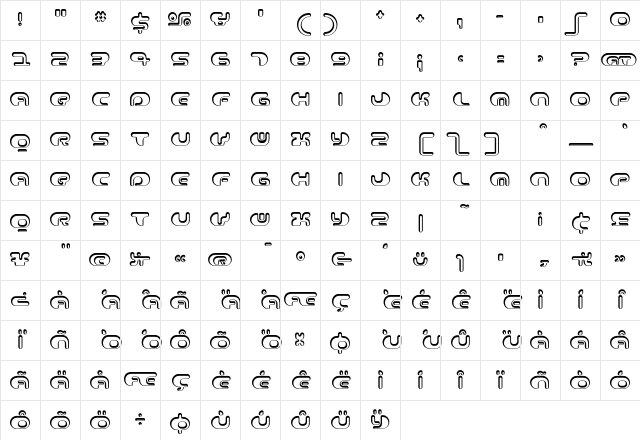
Complete Contour Shaded glyph index. Displaying only characters natively supported by Contour Shaded font.
Contour is a composed and adaptable typeface that performs quietly and consistently across a wide range of design contexts.